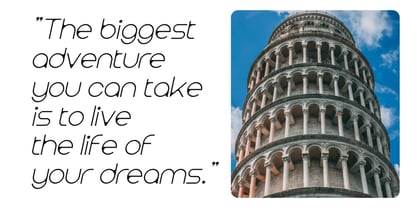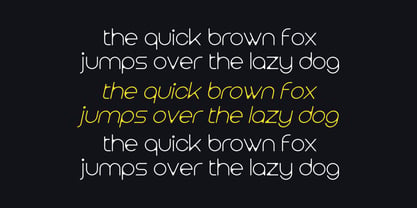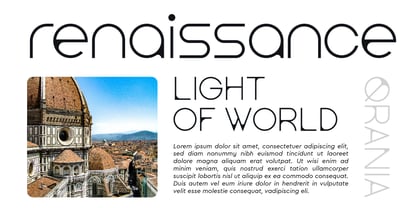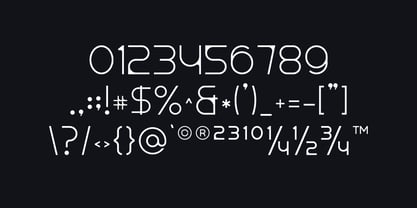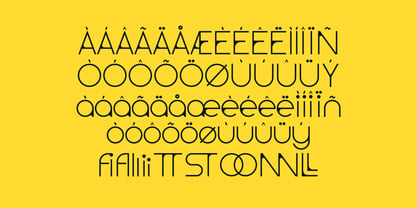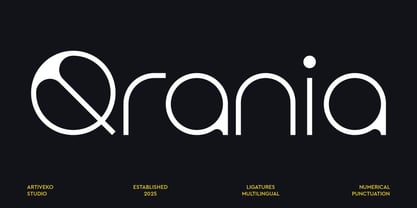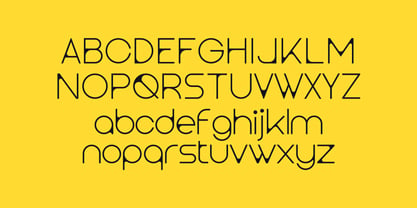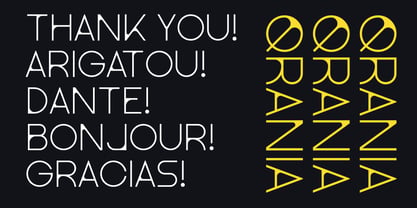
Qrania
von Artiveko
Die Schriftfamilie Qrania wurde von Iwan Alwan entworfen und von Artiveko veröffentlicht. Qrania enthält 2 Stile und Familienpaketoptionen. Mehr über diese Familie
Qrania is a minimalist simple sans serif font designed with clean lines and a modern aesthetic for a sleek and contemporary look. Perfect for branding, web design, editorial layouts, and corporate projects, Qrania embodies simplicity with a touch of elegance. Featuring multilingual support, ligatures, and alternates, this versatile typeface ensures clarity and sophistication, making it an excellent choice for designs that prioritize minimalism and readability.
Designer: Iwan Alwan
Foundry: Artiveko
Artiveko is a font design team based in Indonesia, comprised of several talented font designers who commenced their careers in the font design industry in 2020. With a dedicated focus on crafting fonts, the team members bring their collective expertise and passion to every project they undertake. Situated in Indonesia, Artiveko draws inspiration from the vibrant cultural landscape of the region, infusing their creations with unique flavors and aesthetics.The team's font collection encompasses a diverse range of styles, including serif, sans serif, handwritten, and script typefaces. Each typeface is meticulously crafted to meet the demands of modern design while offering versatility and functionality across various applications. Whether it's the classic elegance of serif fonts, the contemporary appeal of sans serif designs, the personal touch of handwritten scripts, or the expressive flourishes of script fonts, Artiveko ensures that every font reflects their dedication to quality and innovation.Artiveko's fonts have garnered recognition and acclaim, with their works being featured on prominent social media platforms like Creative Market. Through these platforms, the team has been able to connect with a global audience of designers and typographers, further amplifying their reach and influence in the industry. Their fonts are celebrated for their impeccable craftsmanship, attention to detail, and ability to elevate design projects with style and sophistication.As Artiveko continues to evolve and expand its font collection, the team remains committed to pushing the boundaries of typography and setting new standards of excellence. With a relentless focus on creativity, innovation, and collaboration, Artiveko strives to inspire and empower designers around the world with their distinctive and versatile font designs.